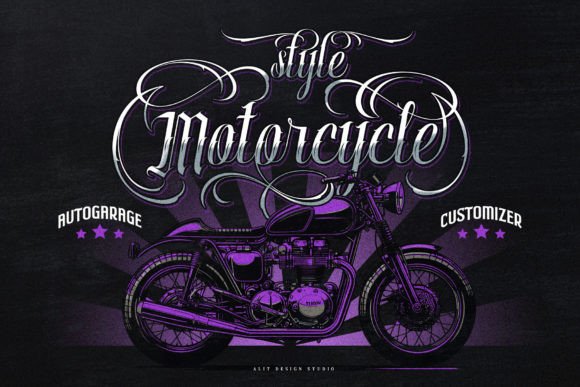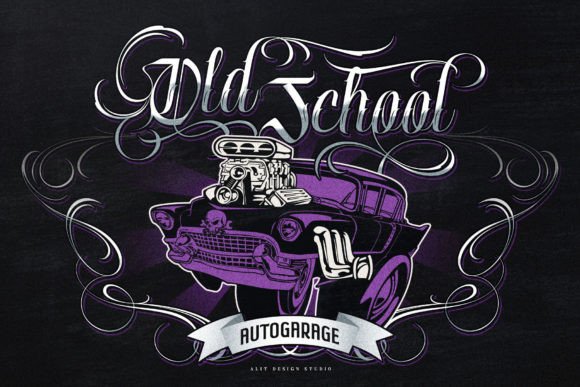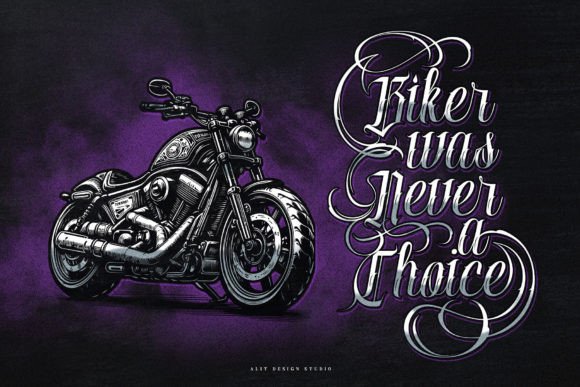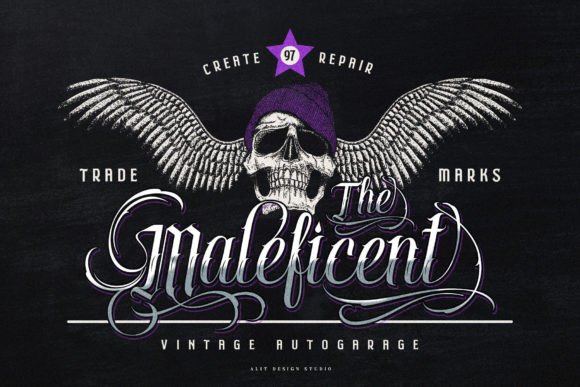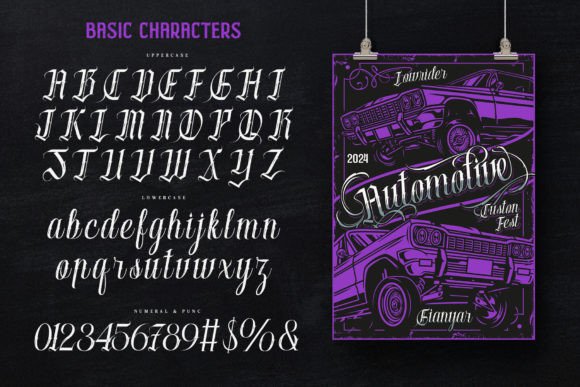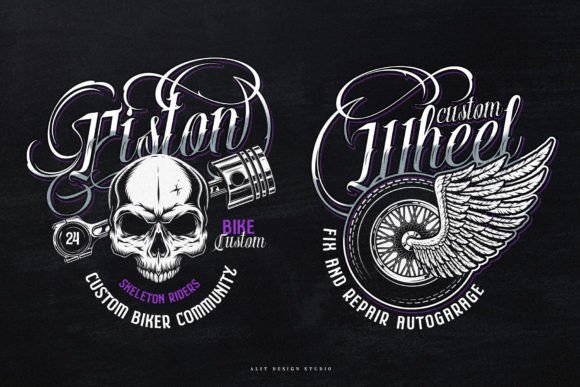
Introduction to Mexicala Font
As a designer, have you ever found yourself in a creative rut, searching for that perfect font to give your project the edge it needs? Maybe you’re working on a design that requires a touch of rebelliousness, a dash of sophistication, and a whole lot of attitude. If that sounds like you, then you’re in luck because we’re about to introduce you to the Mexicala Font – a game-changing design resource that’s about to take your creative projects to the next level.
With its intricate details and bold strokes, Mexicala Font is the perfect choice for designers who want to add a touch of authenticity to their work. This meticulously crafted font is inspired by the rich culture of Mexico and the timeless art of tattoo scripts, making it a unique and valuable resource for any creative project.
Key Features of Mexicala Font
- Unique, hand-drawn design inspired by traditional Mexican typography, making it a valuable resource for creative projects.
- Perfect for use in various creative projects, such as logos, branding materials, and editorial content, due to its unique and eye-catching design.
Honest Review: Mexicala Font
I recently came across the Mexicala Font while searching for a unique design resource to enhance my creative project. Initially, I was drawn to its quirky, eclectic feel, which I thought would add a fun twist to my design.
What works well: ✨ The font’s bold, hand-painted aesthetic is perfect for creating eye-catching titles and headings. The Mexicala Font also comes in a range of weights, allowing for a high degree of customization. The free download option is also a major plus, making it accessible to designers of all levels.
The font’s transparent background makes it easy to layer and blend with other design elements, adding depth and visual interest to my project. The high quality of the font is evident in its crisp lines and well-defined characters.
However, there are some limitations to consider: ⚠️ The font’s unique style may not be to everyone’s taste, and some designers may find it too playful or distracting. Additionally, the font’s limited character set may not be suitable for extensive text-based projects.
Overall, I’m impressed with the Mexicala Font’s potential to elevate my creative project. While it may not be perfect for every design need, its unique style and high quality make it a valuable addition to any designer’s toolkit.
- Unique, hand-painted aesthetic
- Range of weights for customization
- High quality and crisp lines
Use Mexicala Font in conjunction with a transparent background to create stunning designs. Experiment with different font sizes and styles to add visual interest to your creative project. With Mexicala Font, you can create high-quality designs that stand out from the crowd.
Mexicala Font is ideal for a variety of creative projects, including social media graphics, flyers, brochures, presentations, and documents. Its high-quality design and transparent background make it perfect for creating visually appealing and professional-looking designs.